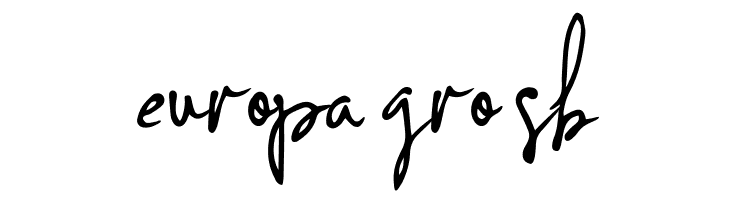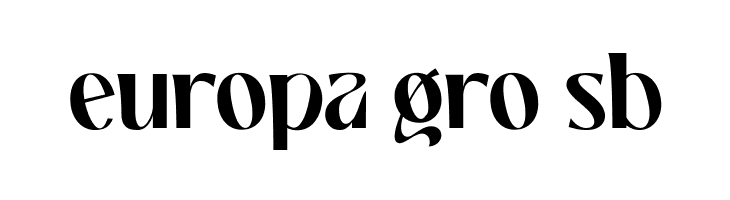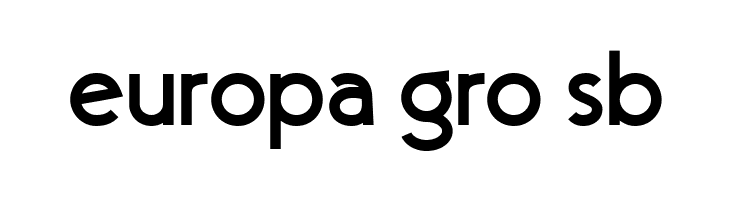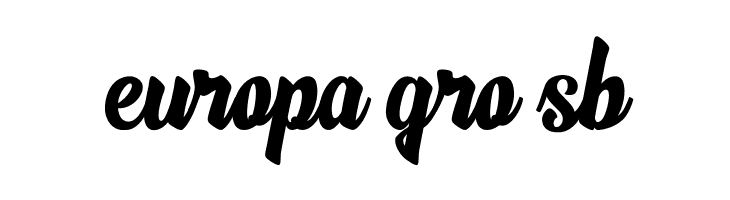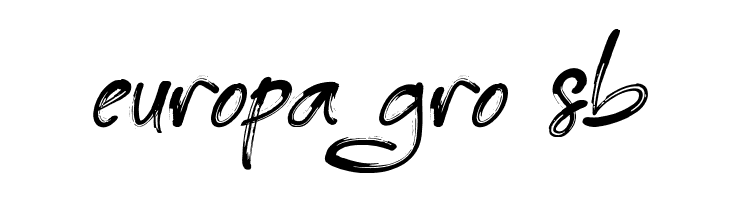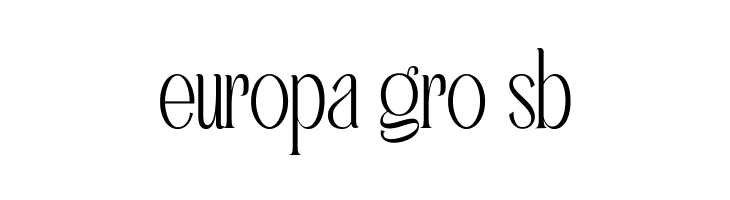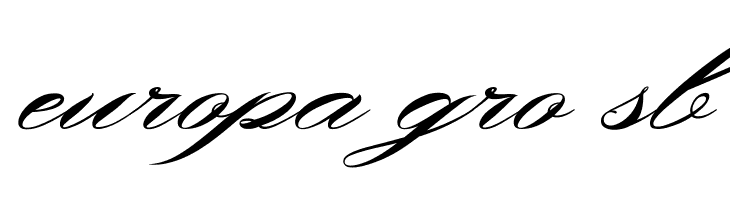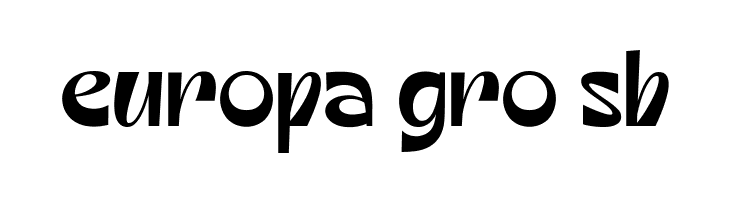
A flowing, elegant script font with a natural handwritten style.
A thin, elegant handwritten script with flowing, dynamic strokes.
A bold, high-contrast font with a modern and slightly retro style.
A modern sans-serif font with smooth curves and balanced proportions.
A bold, dynamic script font with thick, connected strokes.
A dynamic and expressive handwritten font with fluid strokes.
A modern, elegant font with tall, slender letterforms and subtle curves.
An elegant script font with flowing, high-contrast cursive letterforms.
A bold, expressive brush script font with dynamic strokes and artistic flair.
A bold, dynamic font with playful curves and artistic flair.